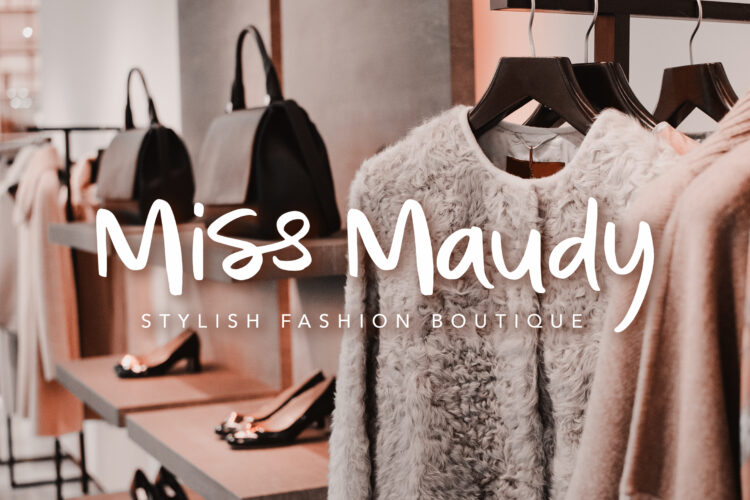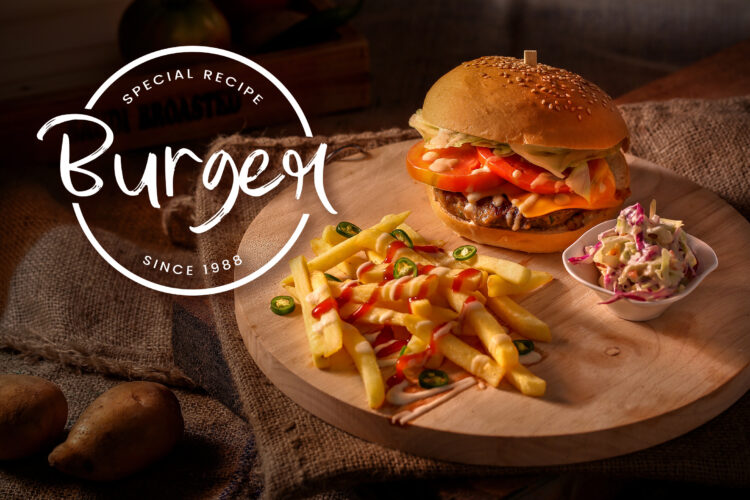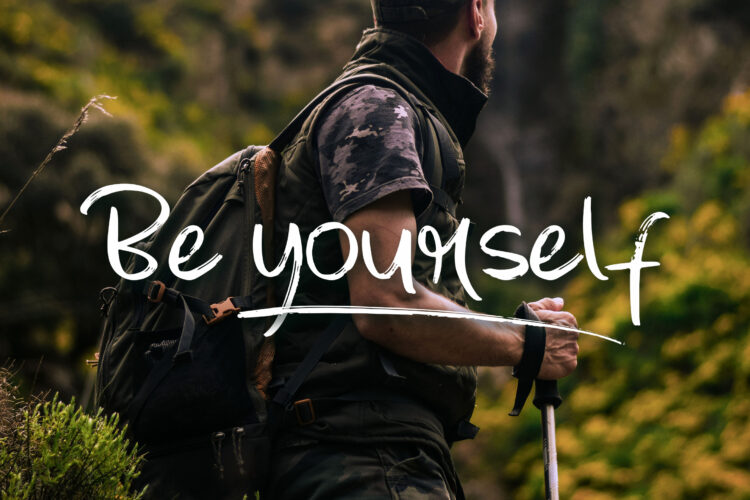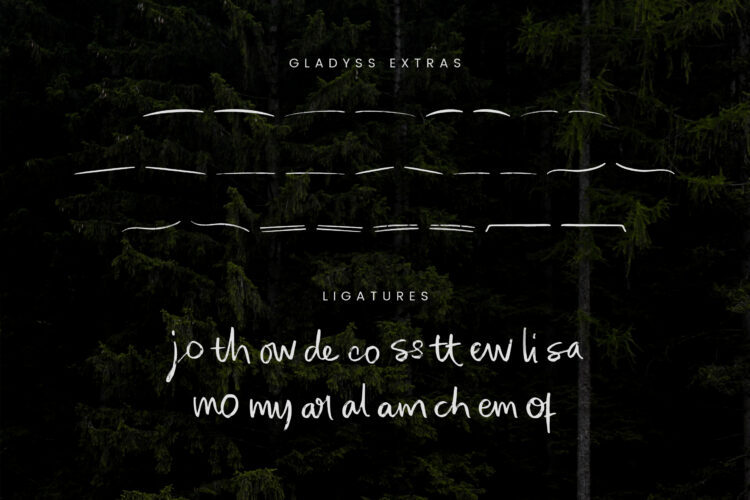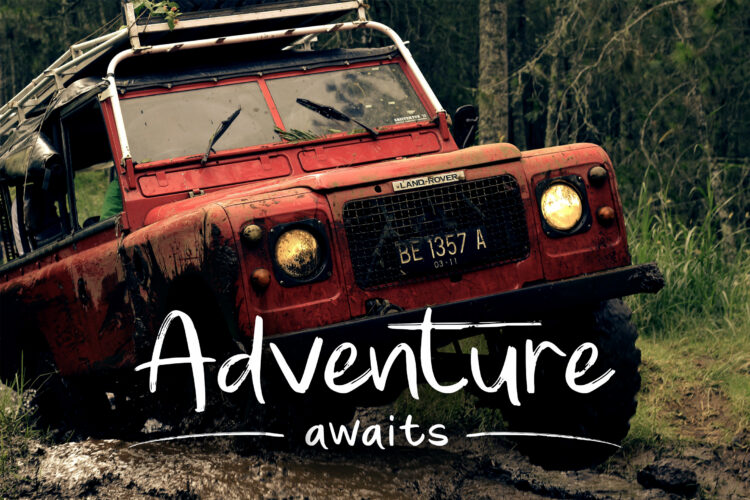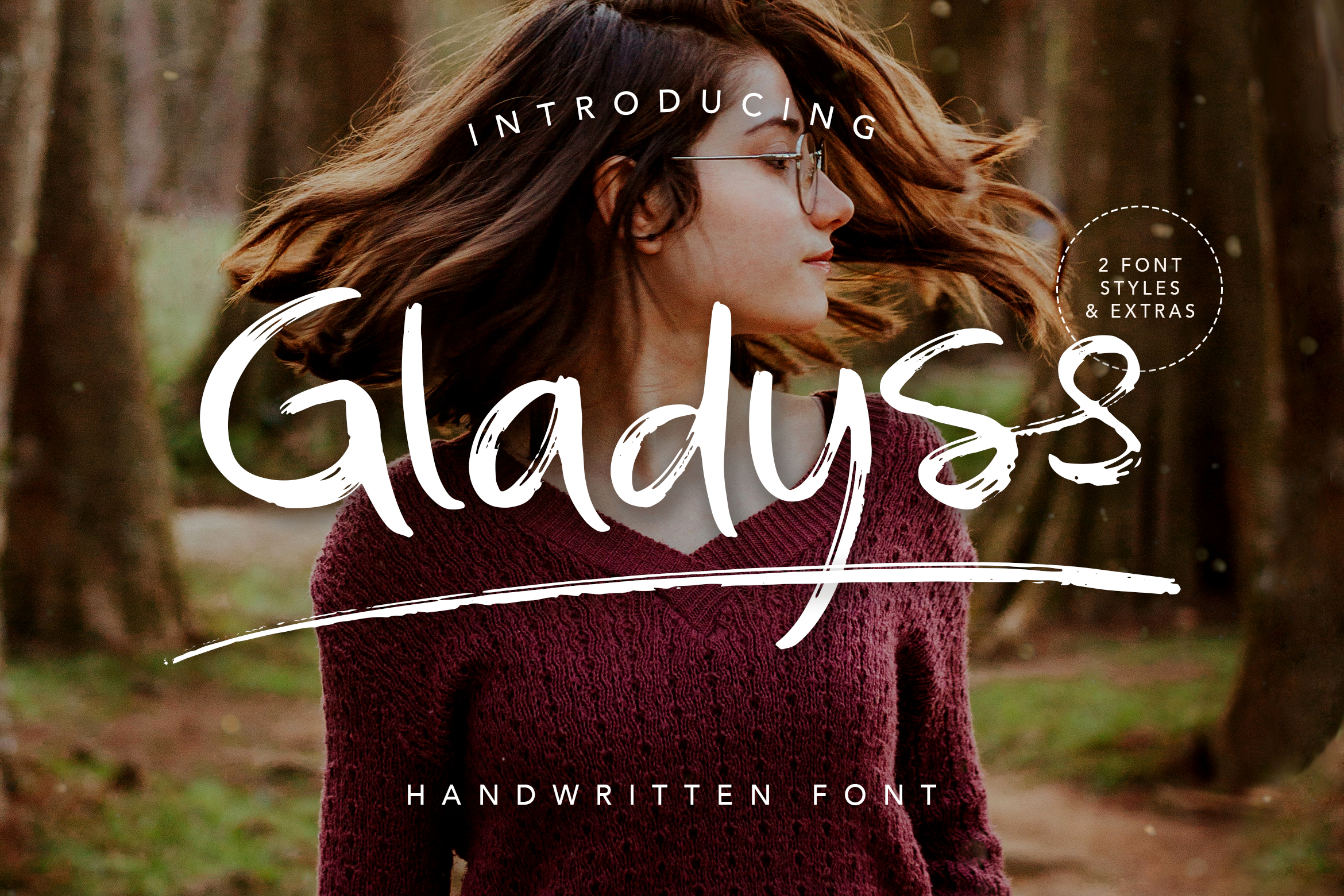
To anyone who needs a full package of brushed font, Gladyss Beauty Brushed Handwritten Font is a perfect choice. This package of the font not only consists of regular font but also alternate font, extras and ligatures to modify your script creation.
This font is suitable for branding projects, product packaging, business cards, adventurous theme or a stylish text overlay to any background image because this font has a strong and fun feeling in every stroke.
The regular and alternate font of Gladyss consisted of uppercase and lowercase letters, numbering and punctuation, while the extra is a set of 26 hand-drawn swashes as a perfect finishing touch to underline the Gladyss text. Install the extras as a separate font, select it from the font menu and type A-Z character to create the swashes you want.
- Gladyss Regular: Font type with bold and clean character. It is perfect for the beauty and any clean layout.
- Gladyss Alt: Font type with quick dry strokes and a signature style. It is perfect for the adventure theme and any fun layout.
- Gladyss Extras: A set of 26 hand-drawn swashes, the perfect finishing touch to underline your Gladyss text. Simply install this as a separate font, select it from your font menu and type any A-Z character to create a swash.